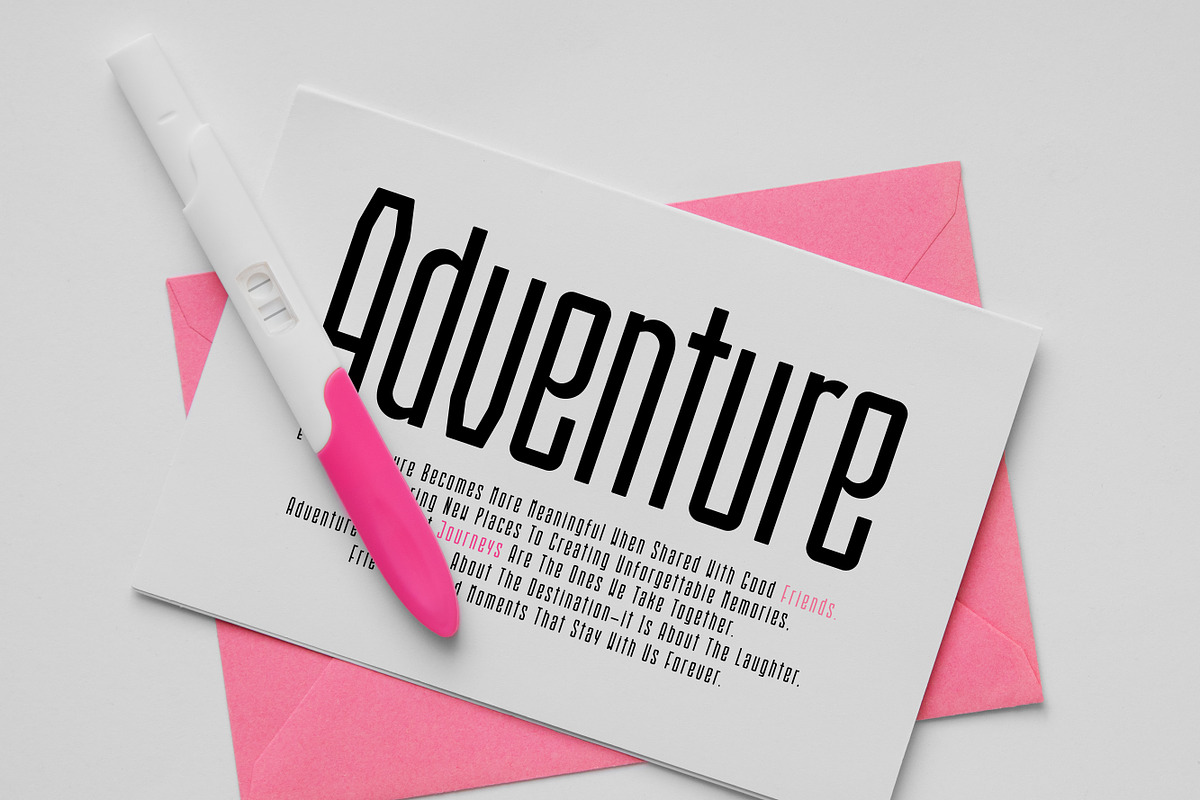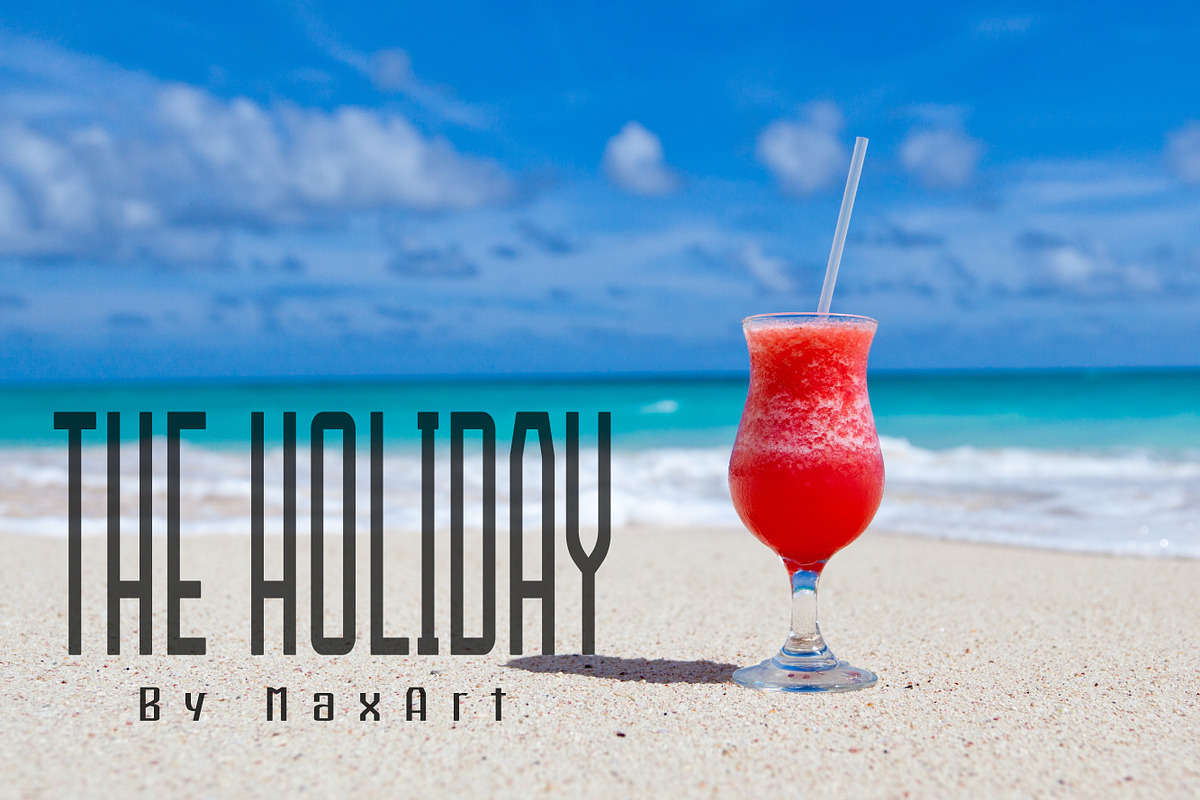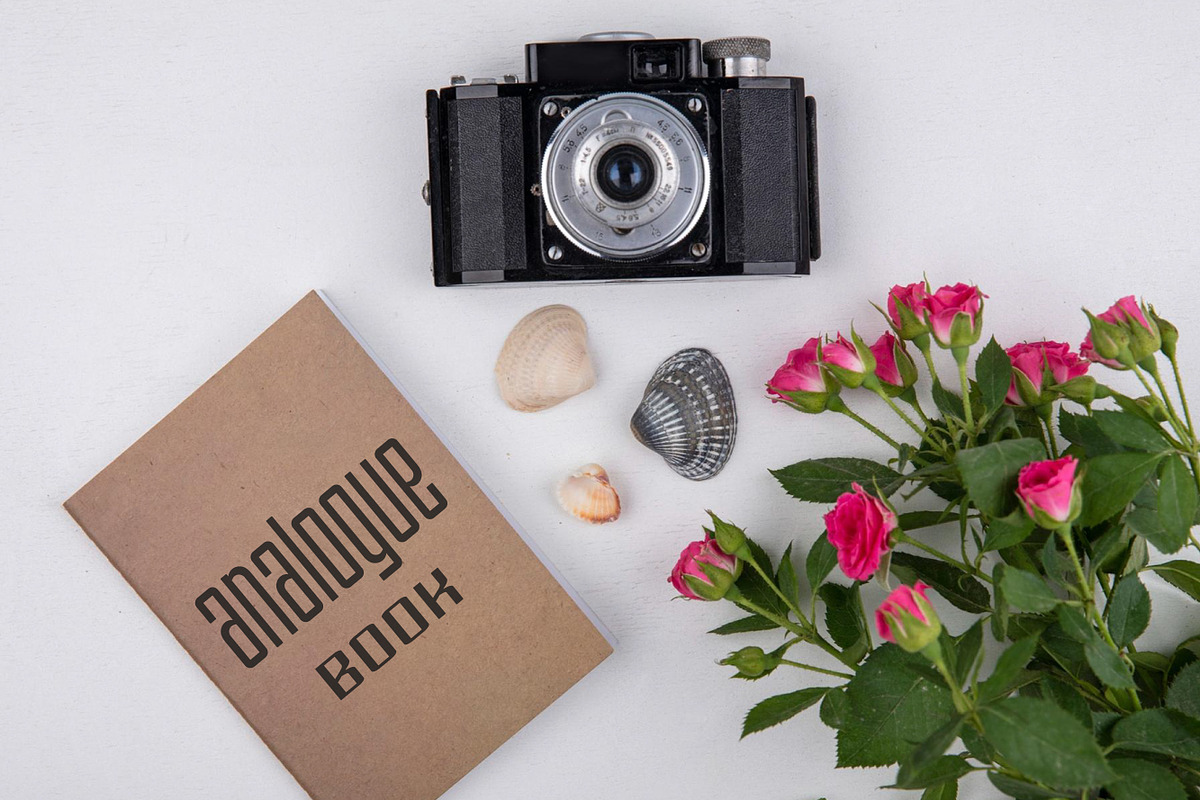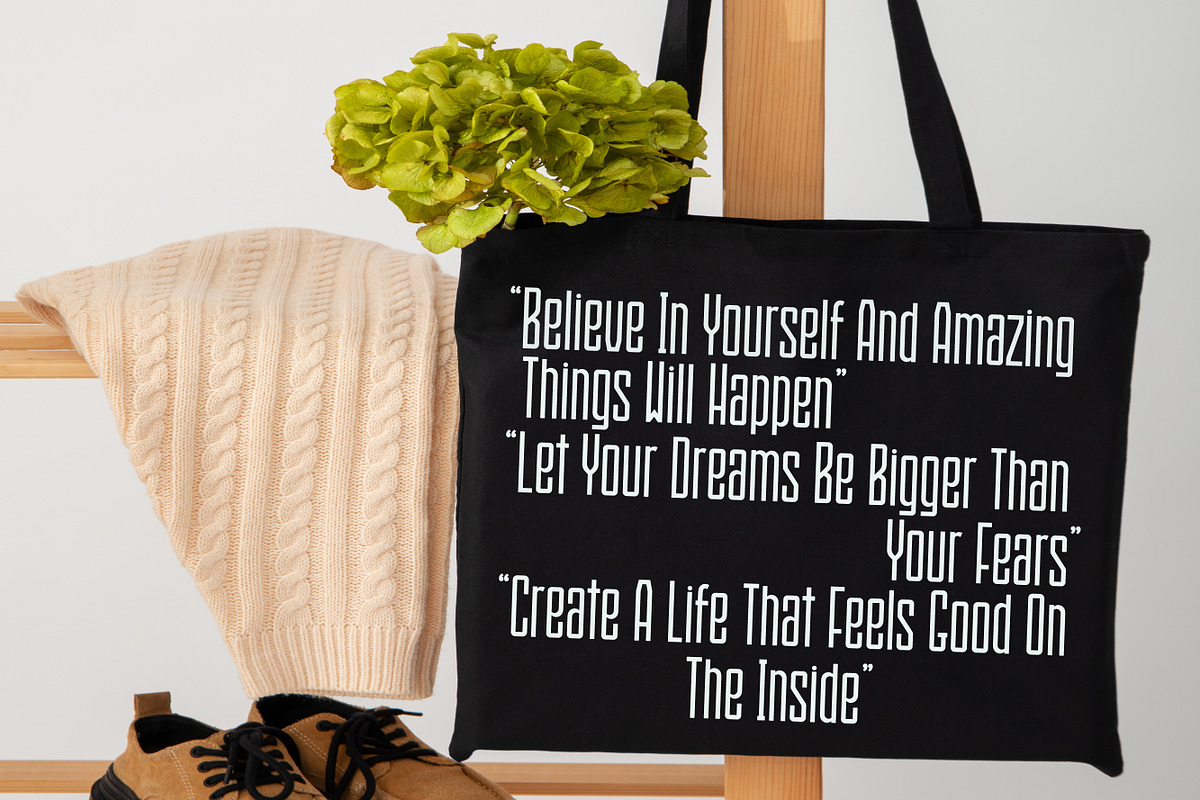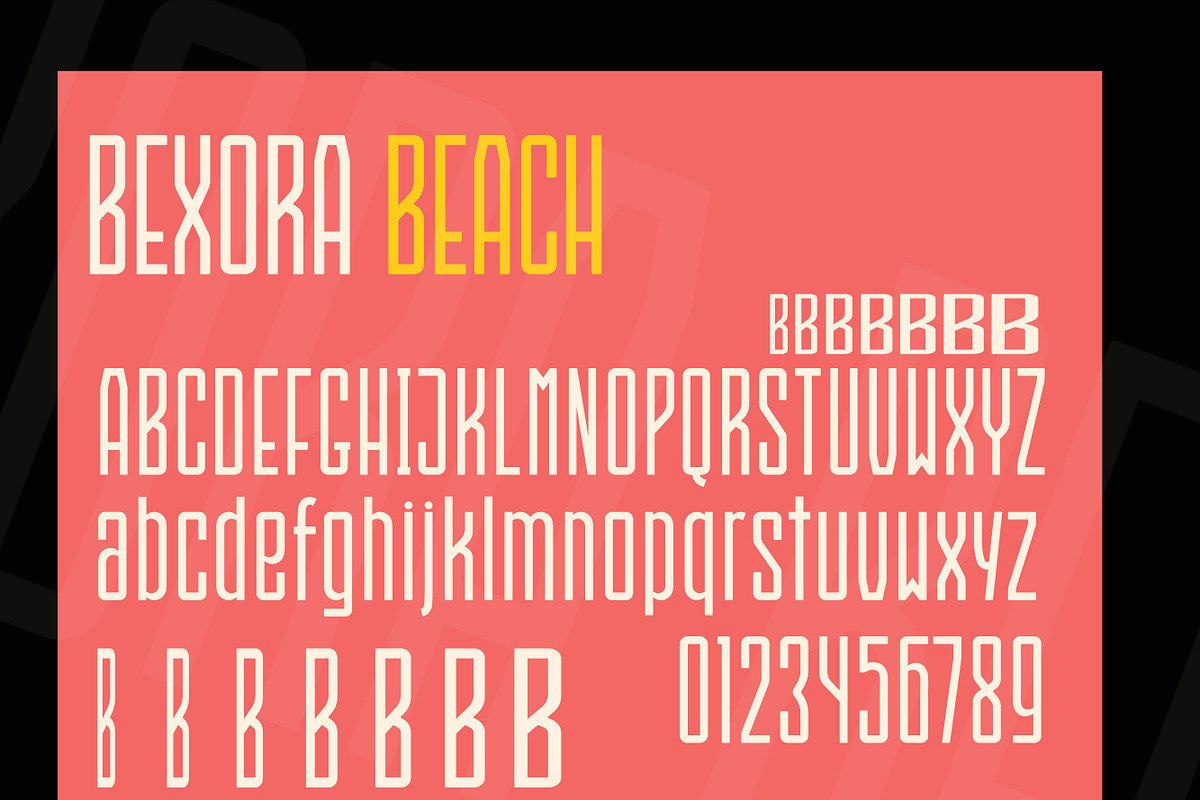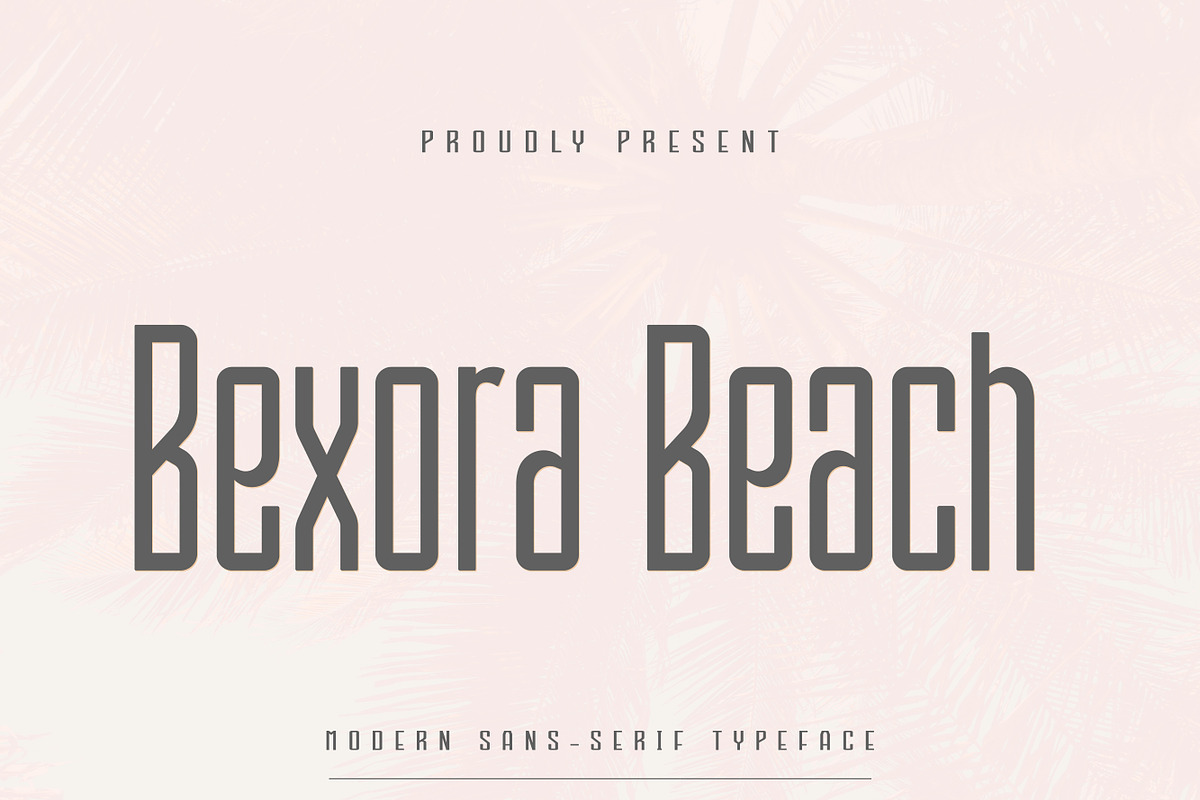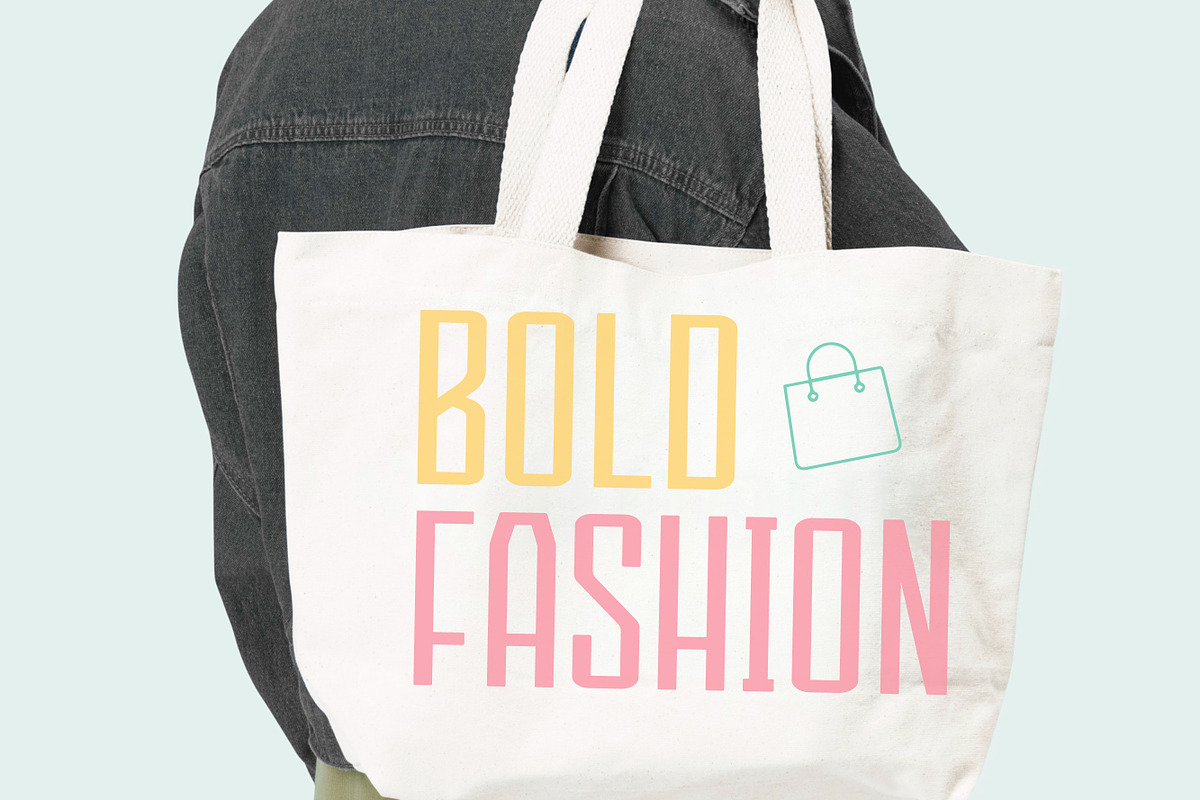
Bexora Beach
Bexora Beach is a tall, condensed sans serif font with a clean modern structure and a distinctive vintage-inspired personality. Designed for strong visual impact, its narrow proportions make it perfect for branding, posters, packaging, logos, headlines, editorial layouts, and social media graphics. The stylish geometric forms and unique character details create an eye-catching appearance while maintaining excellent readability.